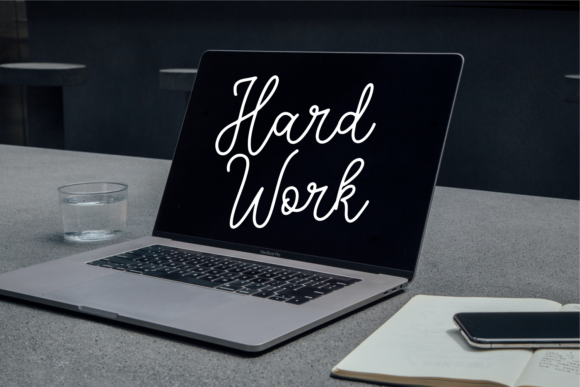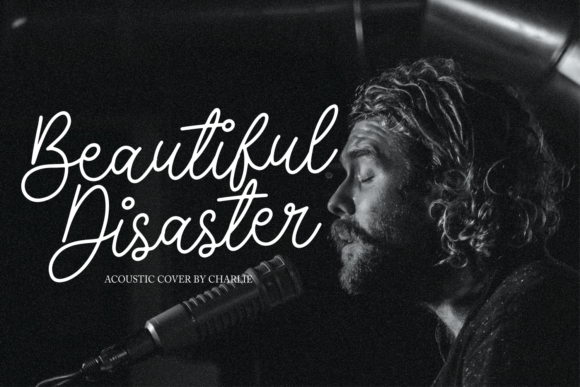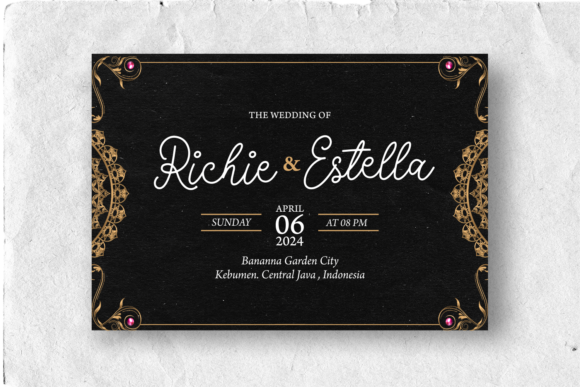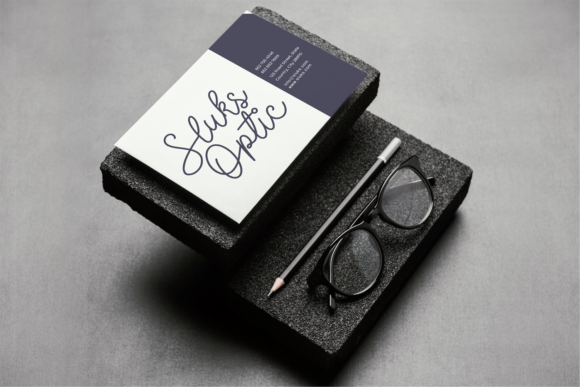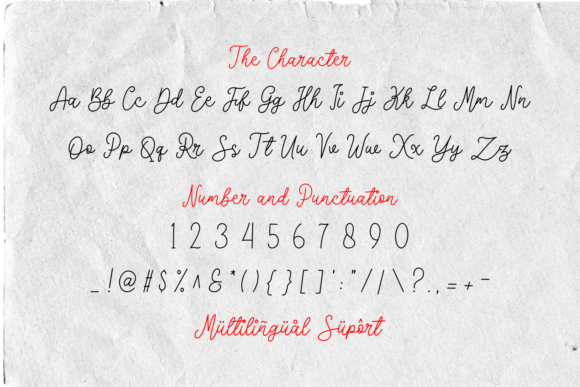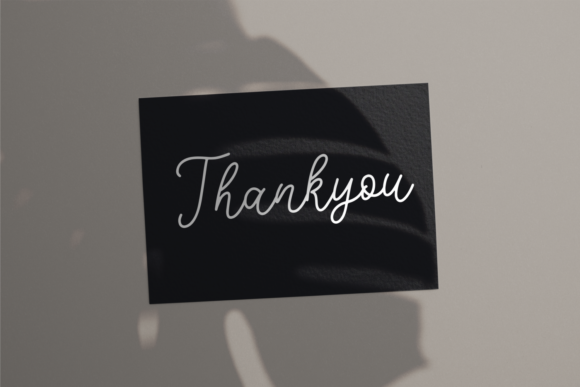
Dona Freddie Font: Elevate Your Designs with a Timeless Handwritten Style
In the world of typography, a well-crafted font can make all the difference in creating visually stunning designs. For designers and crafters looking to add a touch of elegance and personality to their work, Dona Freddie Font is an excellent choice. This lovely and timeless handwritten font is perfect for creating eye-catching logos, branding, and quotes that are sure to leave a lasting impression.
The Unique Charm of Dona Freddie Font
What sets Dona Freddie Font apart from other fonts is its unique and beautiful touch. Every letter has been carefully crafted to showcase a distinctive character, making it a standout choice for designers seeking to add a personal touch to their work. Whether you’re creating a logo, branding materials, or social media graphics, Dona Freddie Font is sure to bring your design to life.
Dona Freddie Font is an ideal choice for designers and crafters who want to create stunning visual content. Its versatility makes it suitable for a wide range of design projects, from:
- Logos: Create a lasting impression with a custom logo that showcases your brand’s personality.
- Branding: Develop a consistent visual identity that sets your brand apart from the competition.
- Quotes: Add a touch of elegance and sophistication to your inspirational quotes and sayings.
- Social Media Graphics: Elevate your social media presence with eye-catching graphics that showcase your brand’s style.
Why Choose Dona Freddie Font?
With so many fonts available, why choose Dona Freddie Font? Here are just a few reasons why designers and crafters love this font:
- Timeless Appeal: Dona Freddie Font has a classic, timeless quality that ensures your designs will remain stylish for years to come.
- Unique Character: Each letter has a distinctive character, making your designs stand out from the crowd.
- Ease of Use: Dona Freddie Font is easy to read and use, making it perfect for a wide range of design projects.
- Versatility: This font is suitable for a variety of design applications, from logos and branding to quotes and social media graphics.
Tips for Using Dona Freddie Font
To get the most out of Dona Freddie Font, here are a few tips to keep in mind:
- Experiment with Sizes: Dona Freddie Font looks great in a variety of sizes, from large headings to smaller body text.
- Play with Colors: This font pairs well with a range of colors, so don’t be afraid to experiment and find the perfect combination for your design.
- Mix and Match: Combine Dona Freddie Font with other fonts to create a unique and visually interesting design.
| Font Name | Dona Freddie Font |
| Author | Forberas Club |
Dona Freddie Font is a beautiful and timeless handwritten font that’s perfect for designers and crafters looking to elevate their designs. With its unique character, versatility, and ease of use, this font is sure to become a staple in your design toolkit. Whether you’re creating logos, branding materials, or social media graphics, Dona Freddie Font is an excellent choice for adding a touch of elegance and personality to your work.